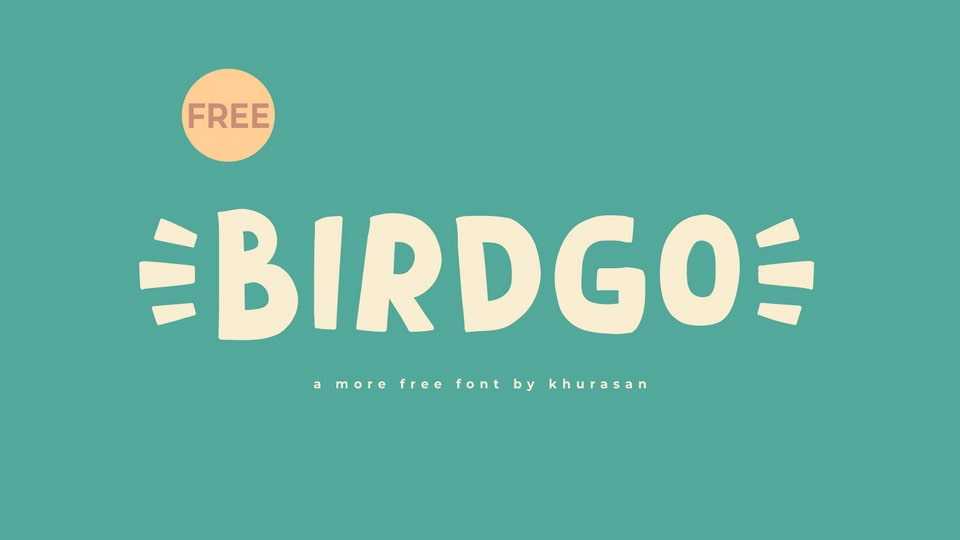
Download Birdgo font, a handcrafted typeface with a dynamic flair, featuring exaggerated strokes and lively details that bring a playful cartoon aesthetic to life. Birdgo font is designed to add a burst of energy and fun to your projects.